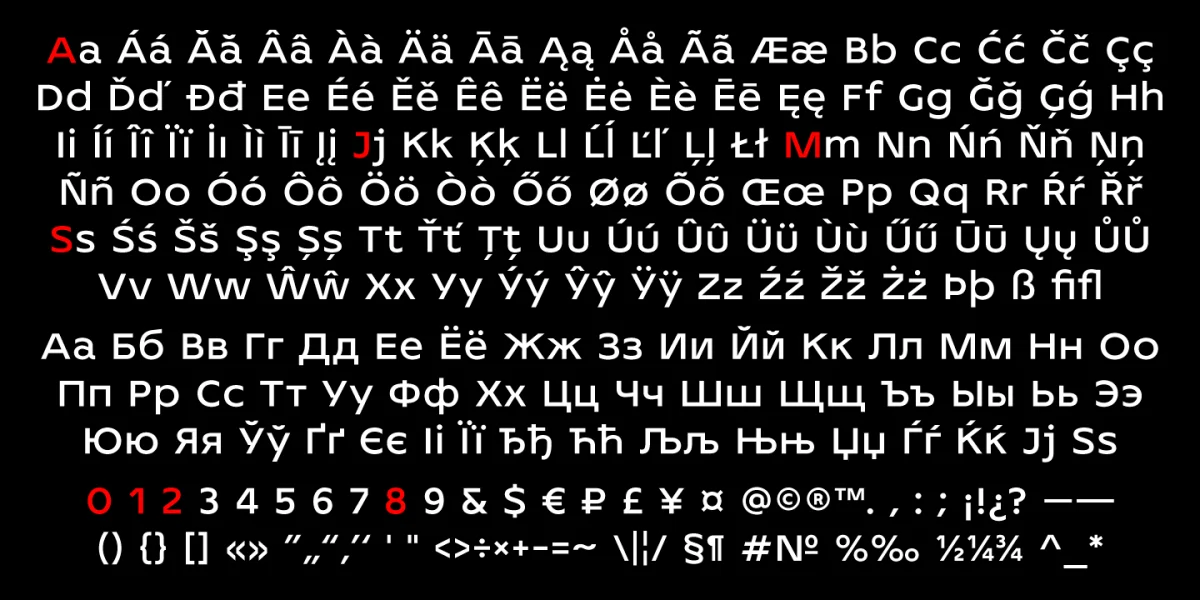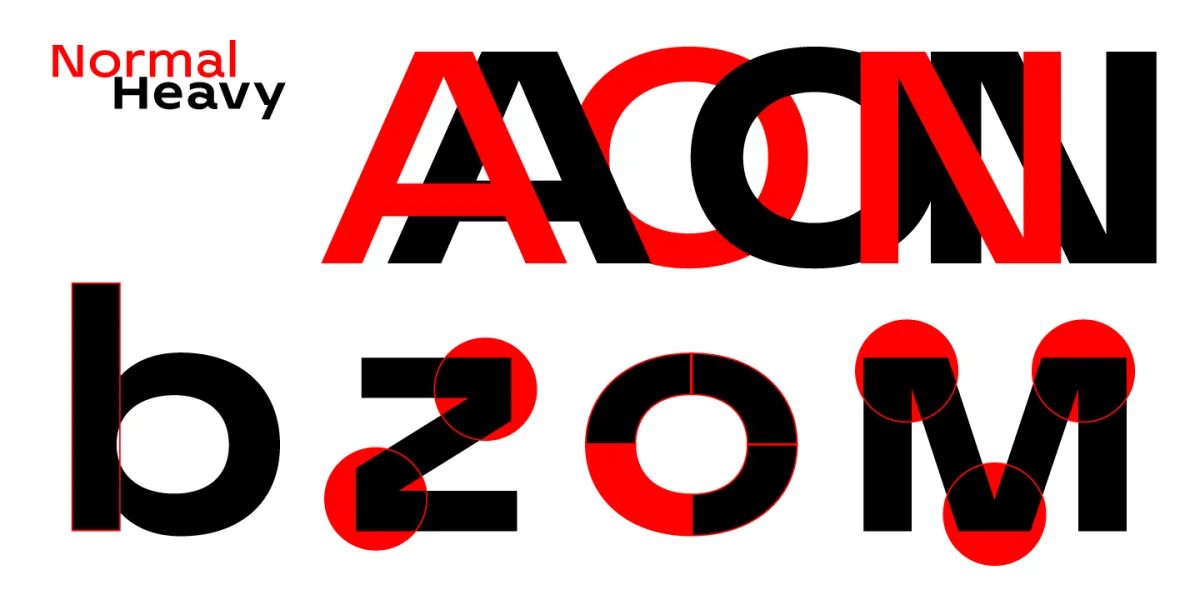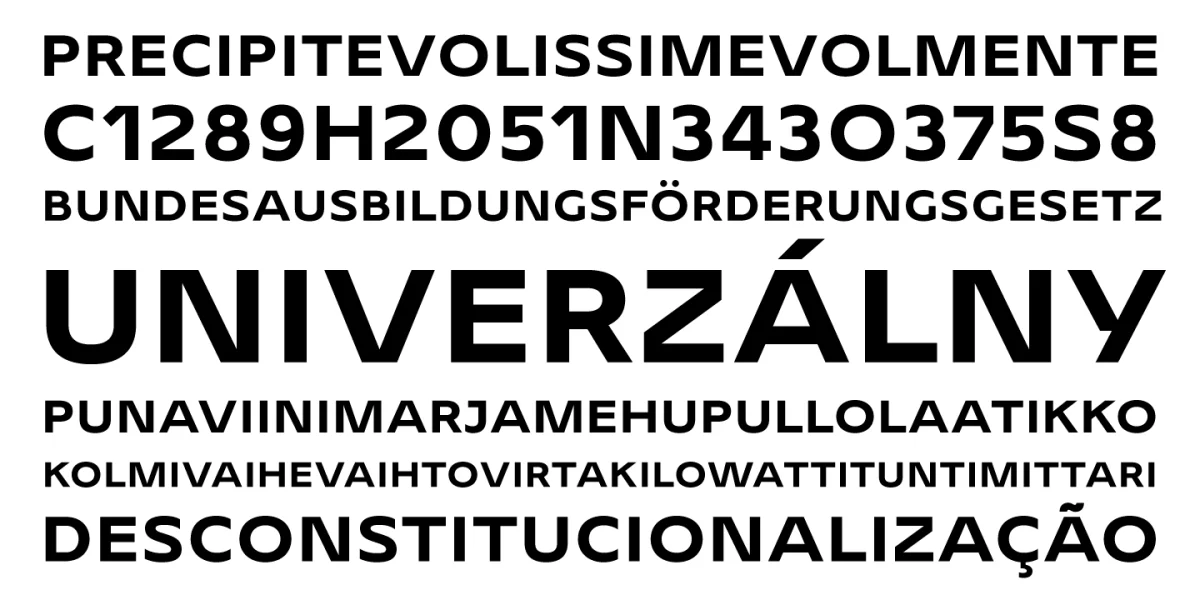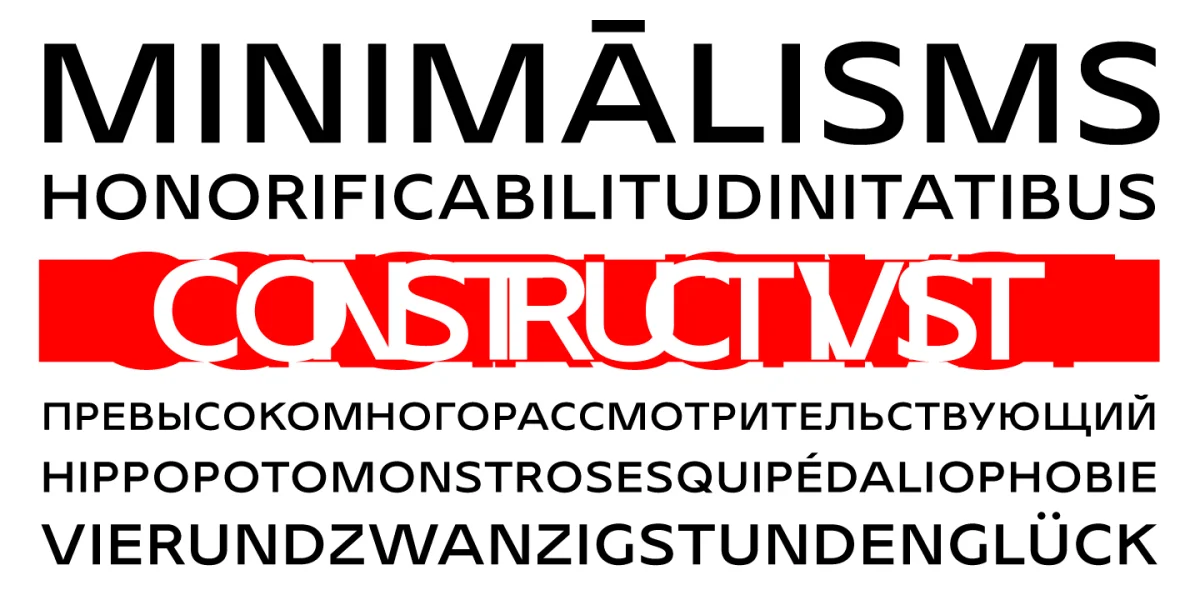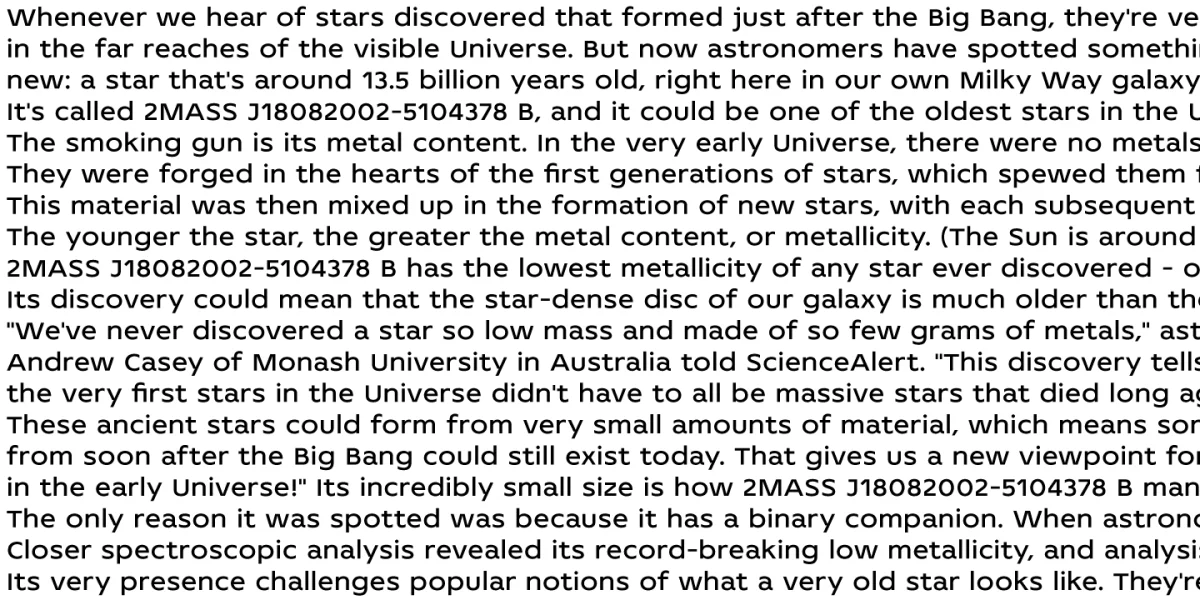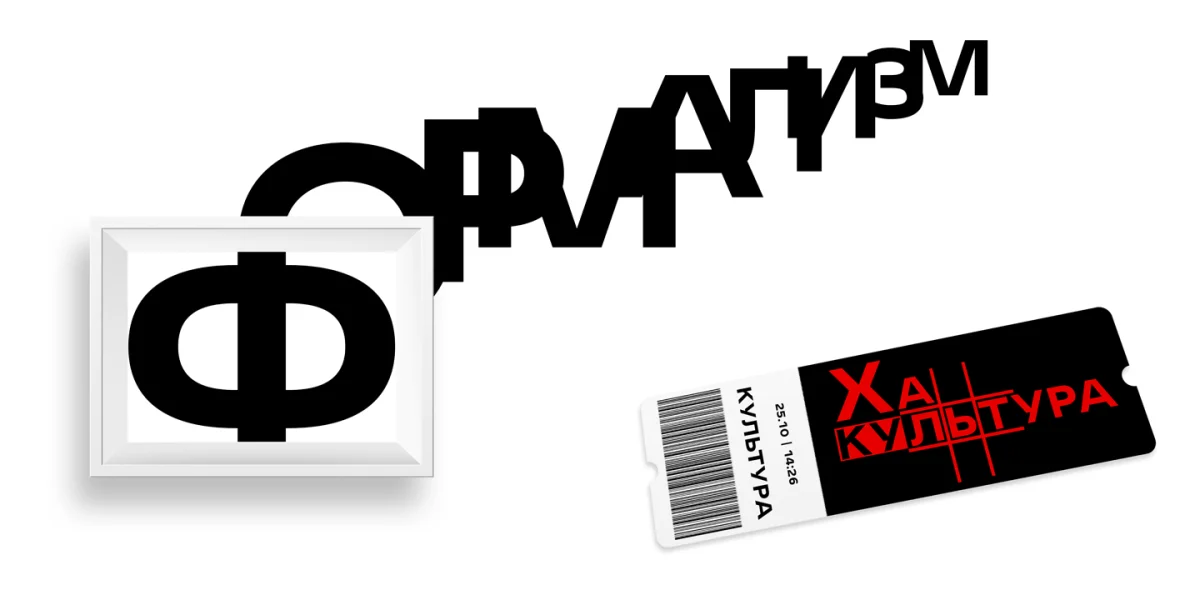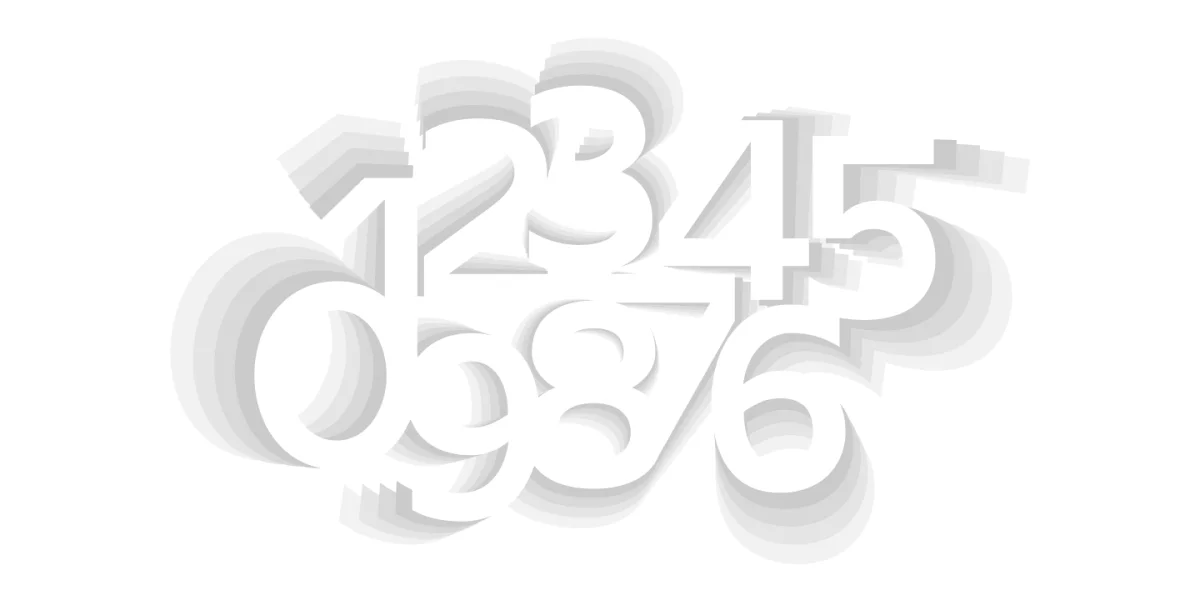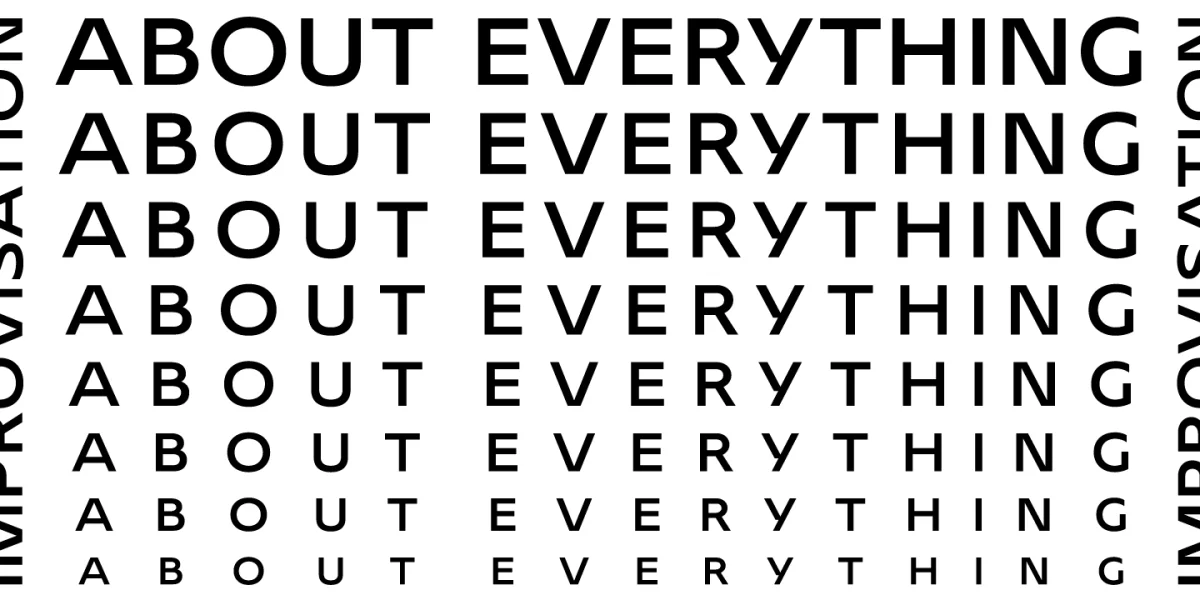
2Mass J1808 is an experimental modern sans serif typeface. Open geometric shapes combined with futuristic style and wide letters make the text he typed quite attractive. Perfect for creating modern branding, logos, website design and many other ideas. Supports extended Latin, Cyrillic and OpenType functions. The font was developed in 2018-2020.